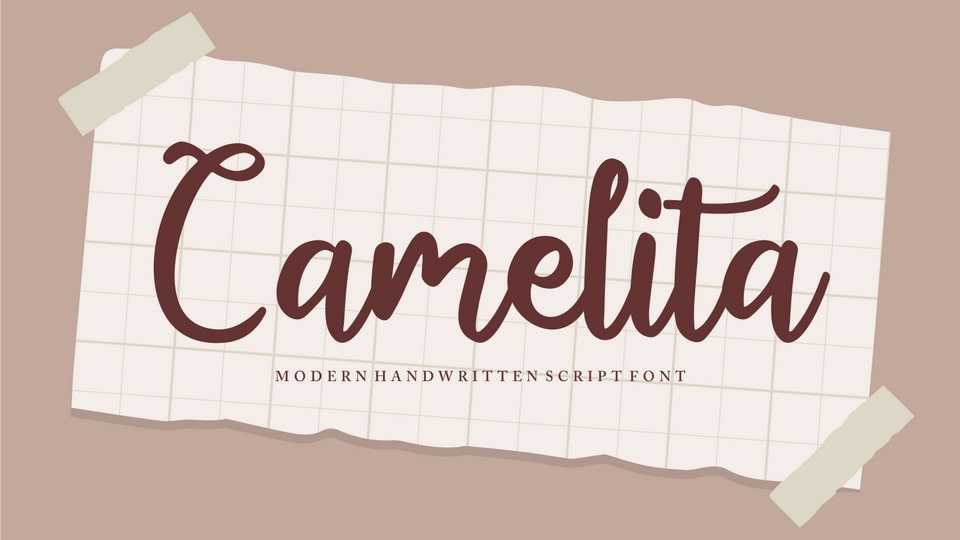
Download Camelita font, a cute script typeface inspired by casual handwriting. Camelita font is especially designed for craft, kids lettering projects.